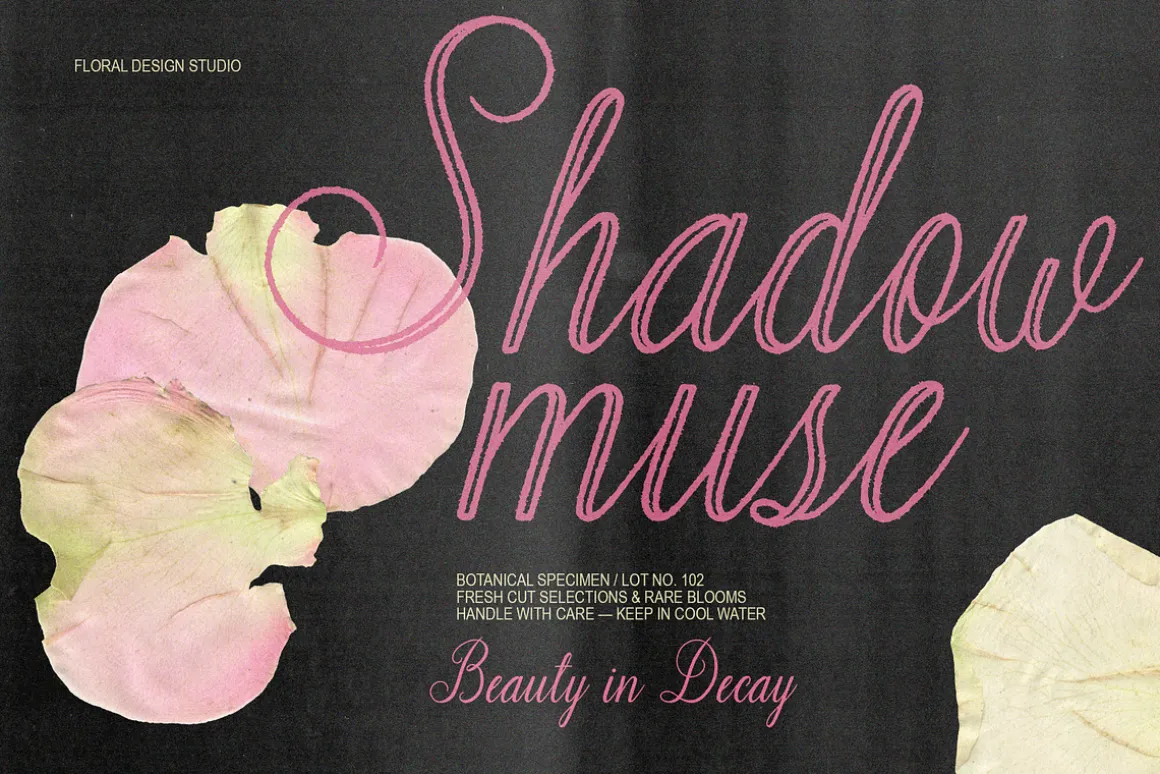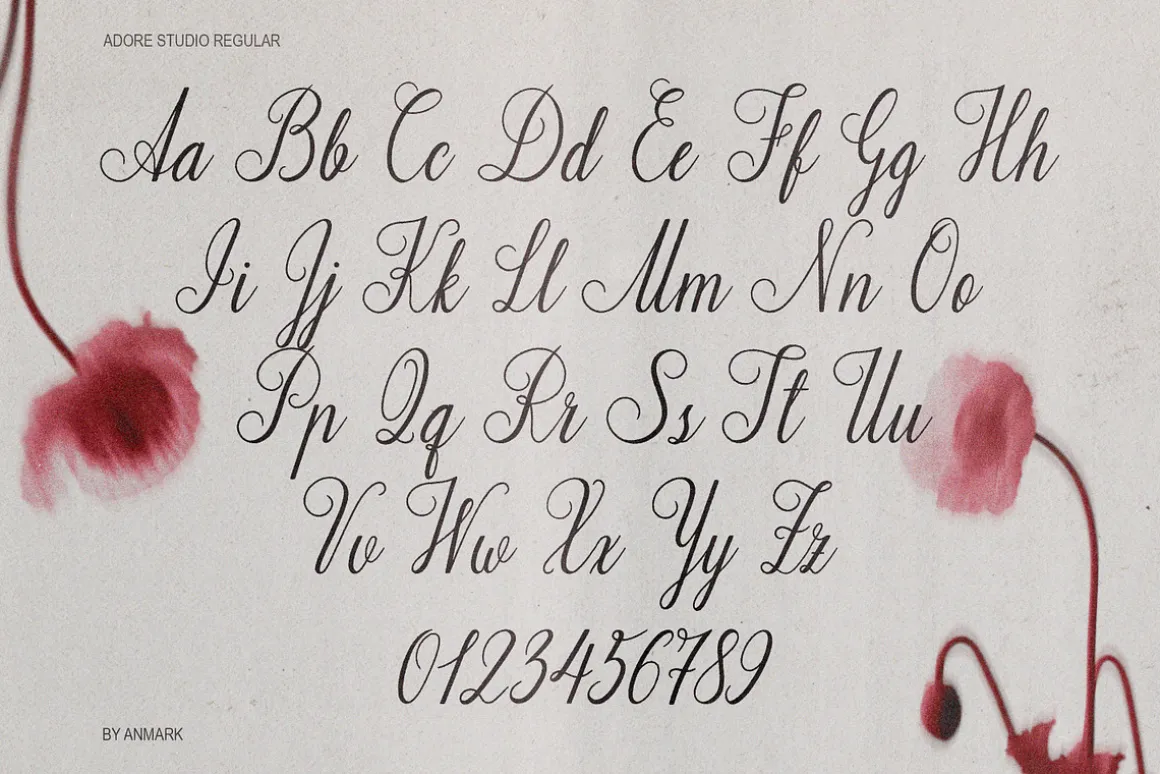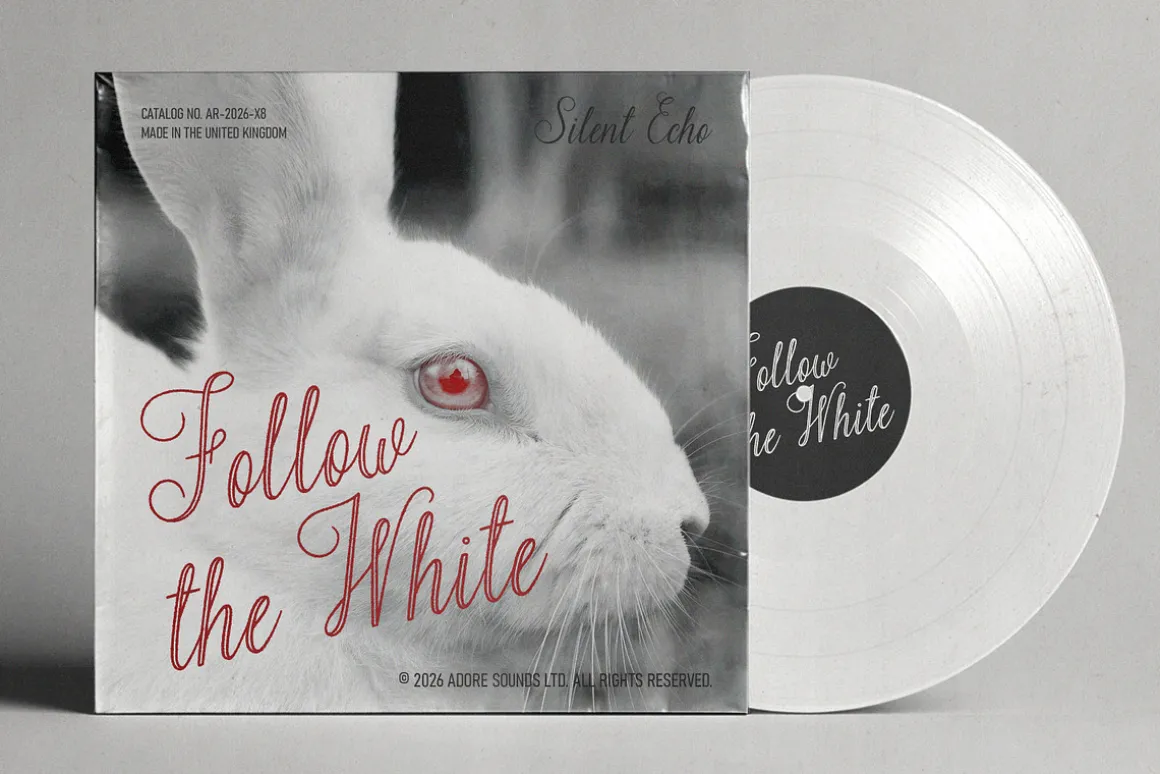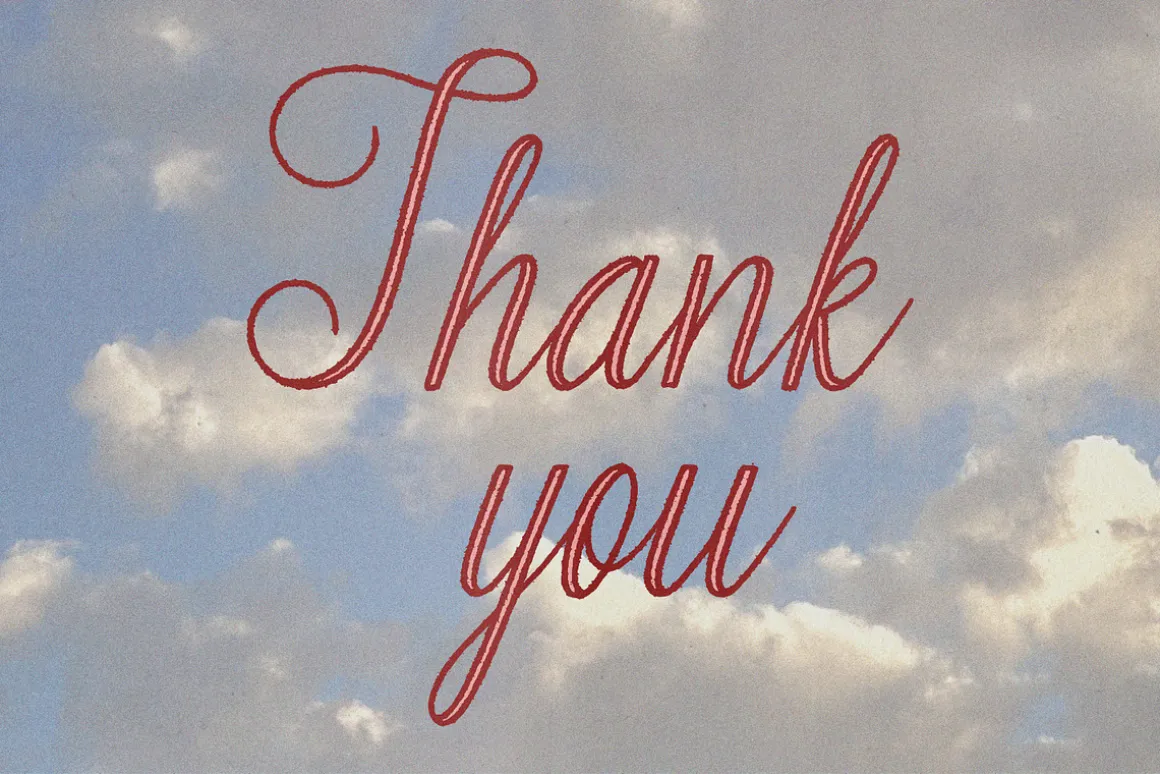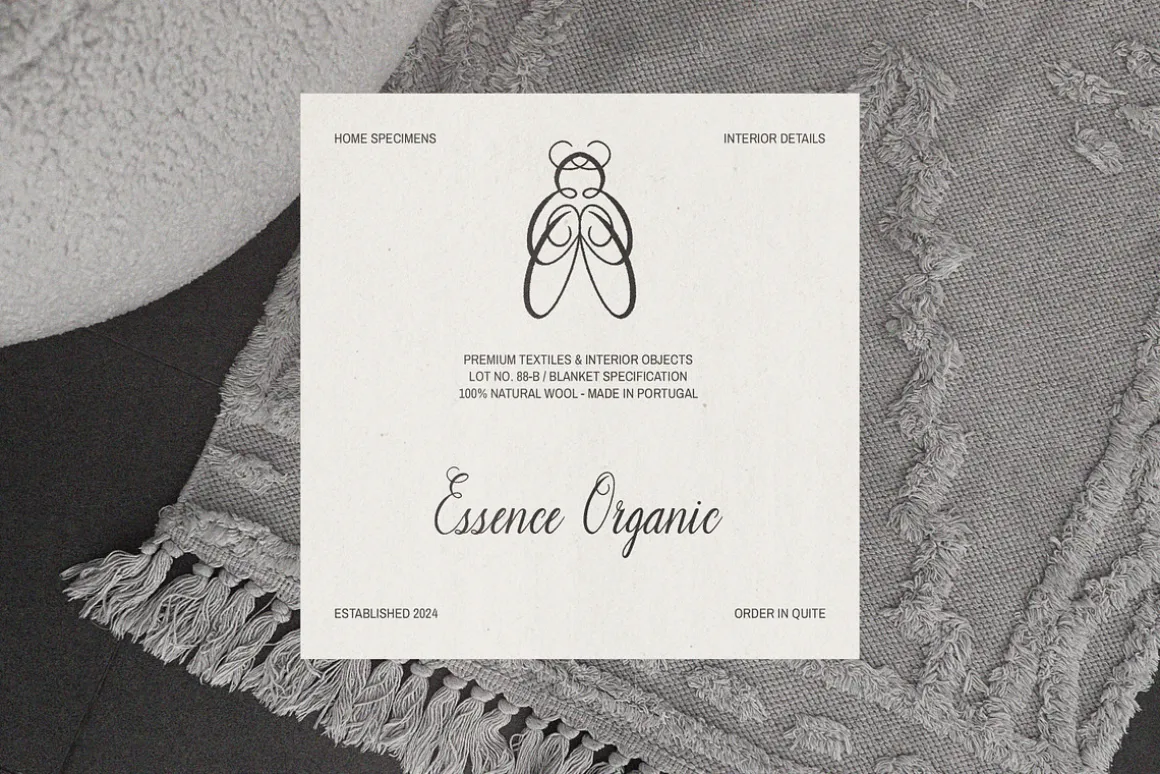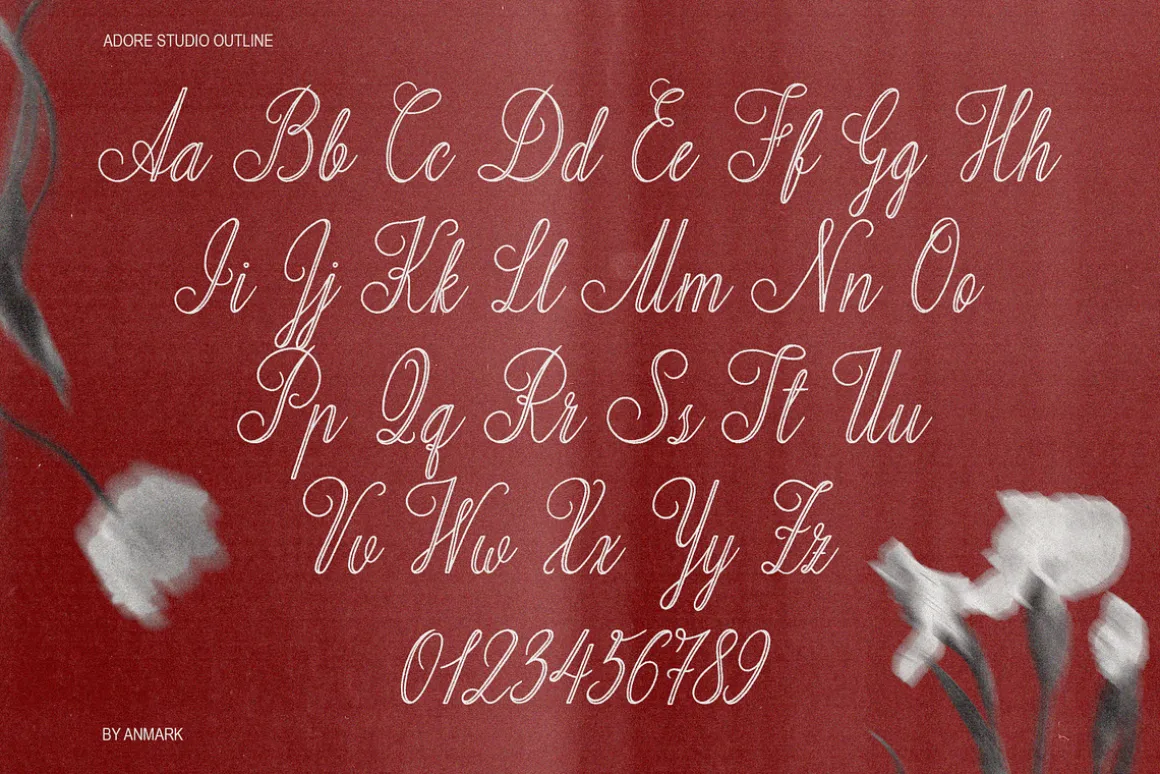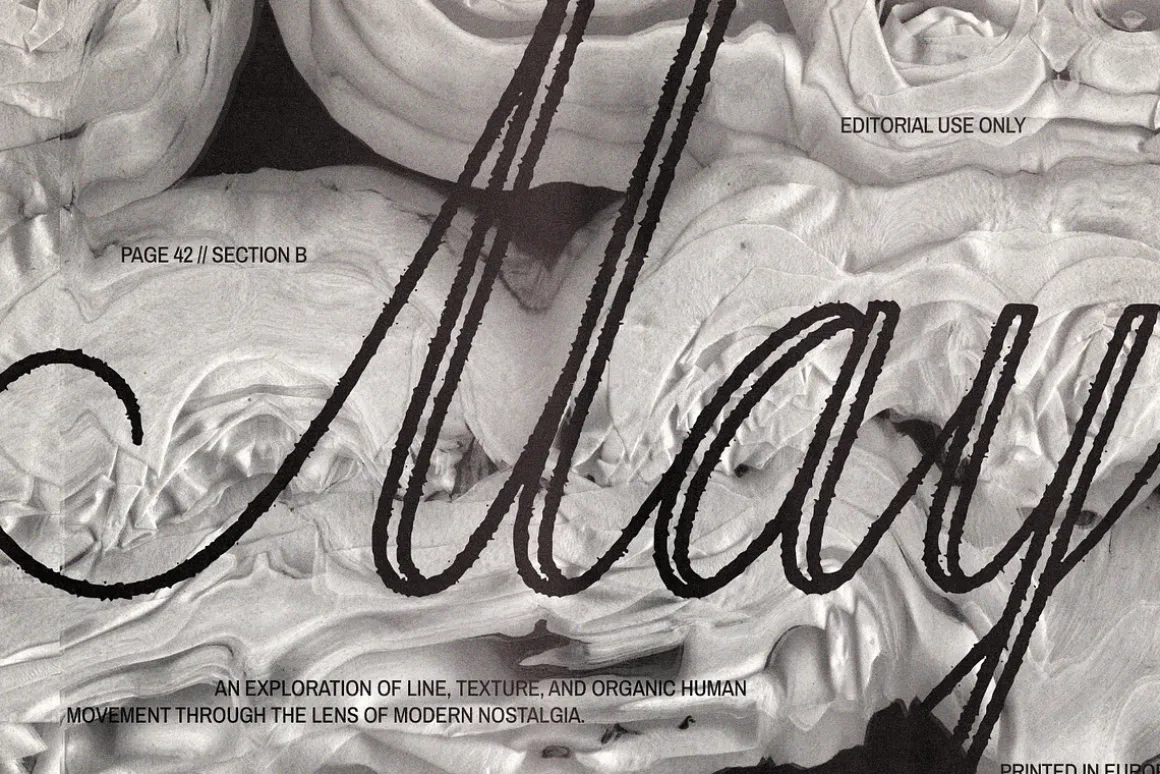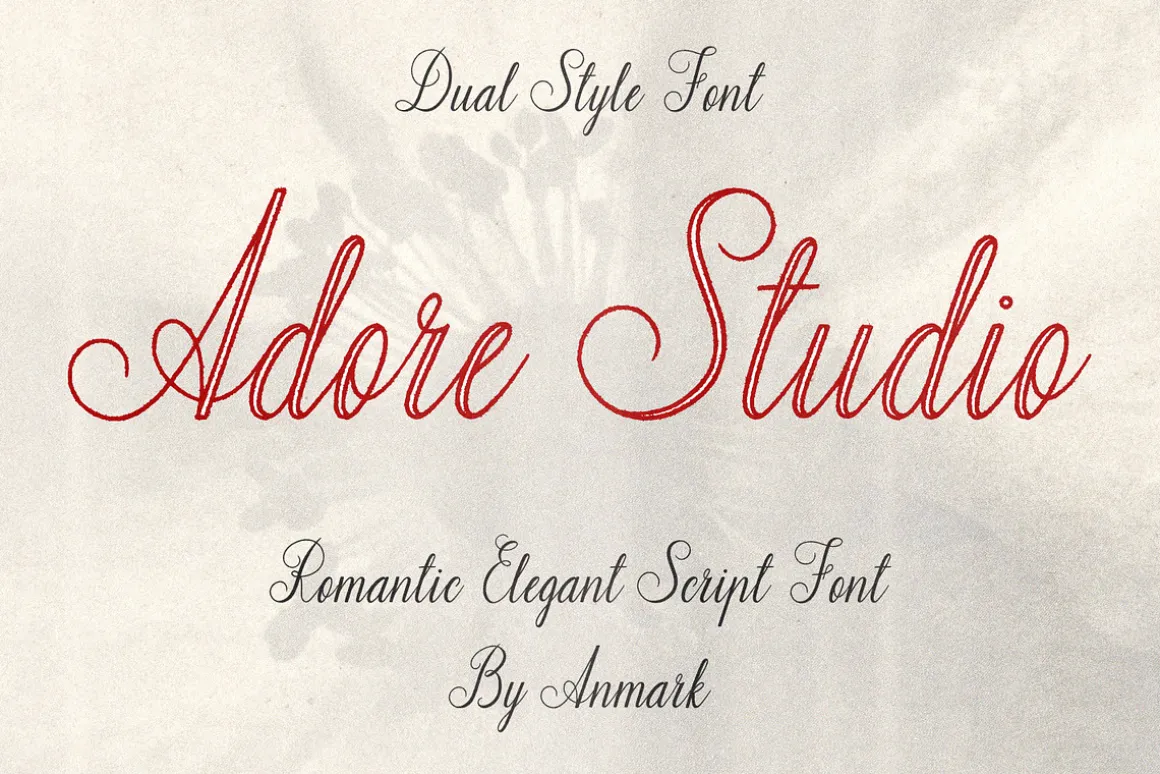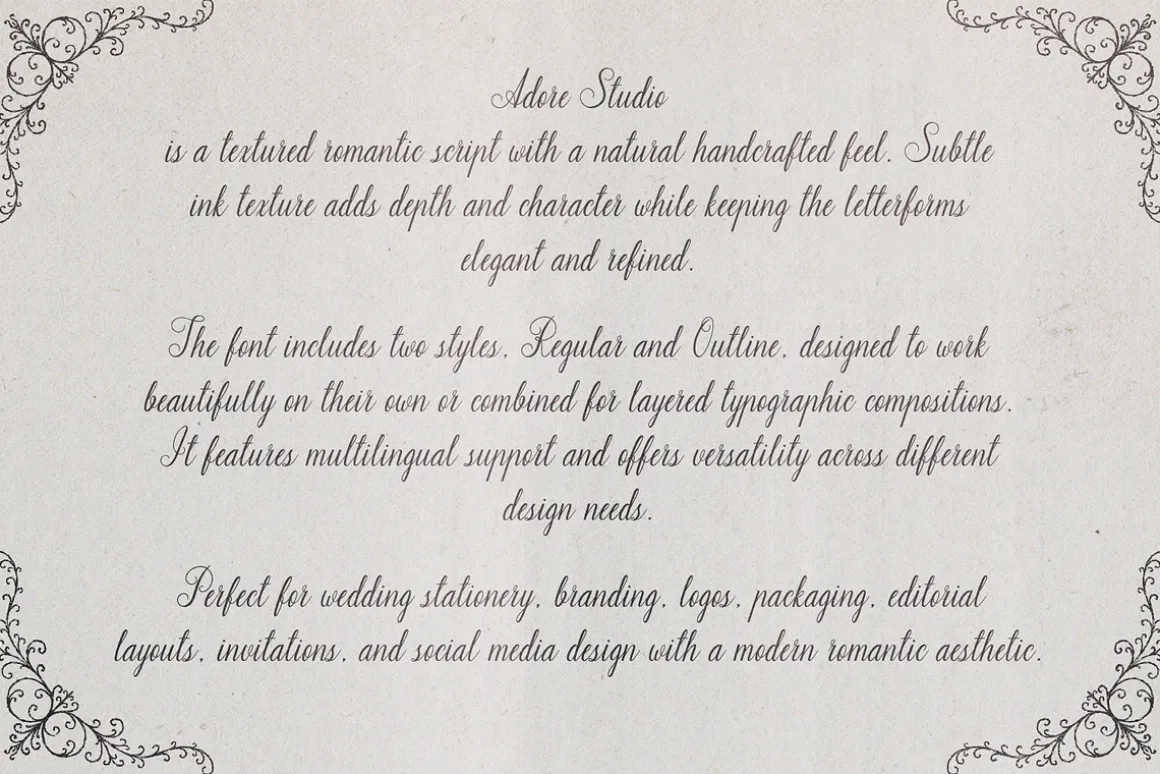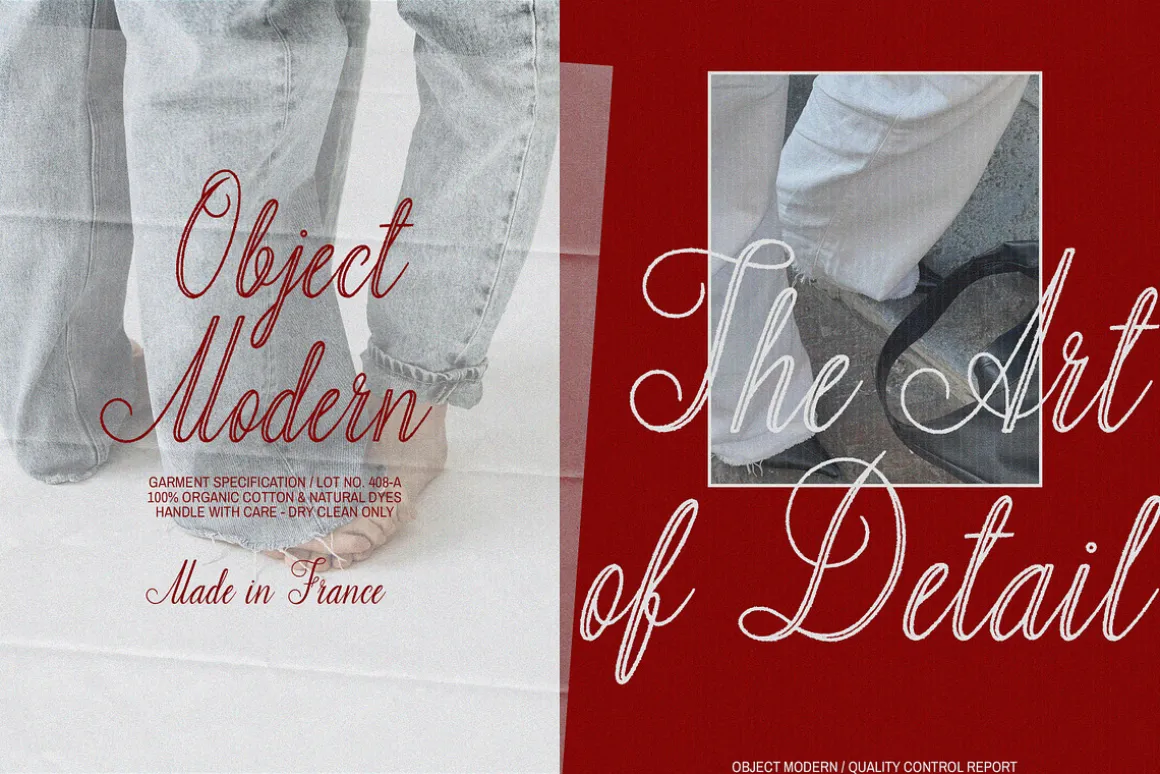
Adore Studio is an elegant textured romantic script font with a natural handcrafted feel. The subtle ink texture adds depth and character while keeping the letterforms refined, soft, and expressive. It brings a modern romantic aesthetic to any design while maintaining clarity and sophistication.
Outline
Both styles are designed to complement each other perfectly. You can use them separately for clean and elegant typography or layer them together to create depth, contrast, and a more eye catching visual effect.
also features multilingual support, making it suitable for a wide range of international design projects.
Perfect for wedding stationery, branding, logos, packaging, invitations, editorial layouts, social media graphics, beauty brands, boutique identities, and modern romantic visual concepts.